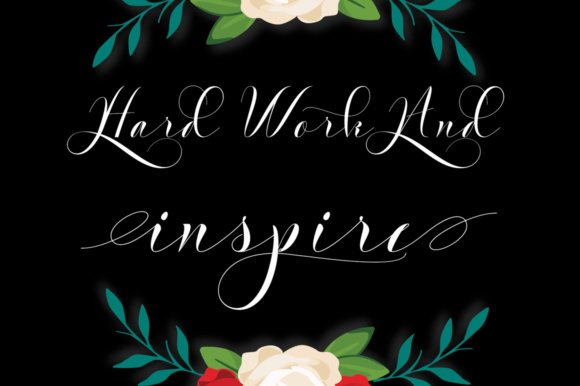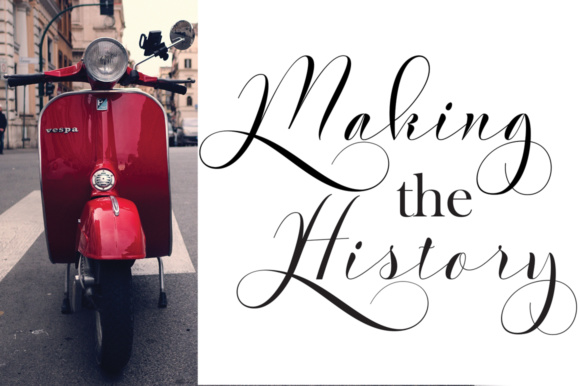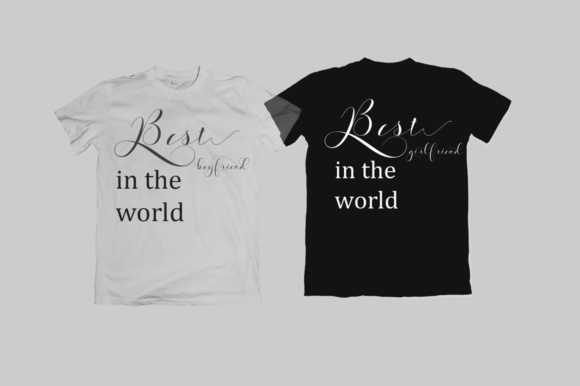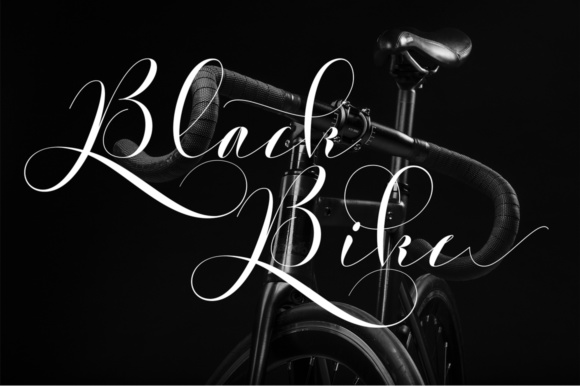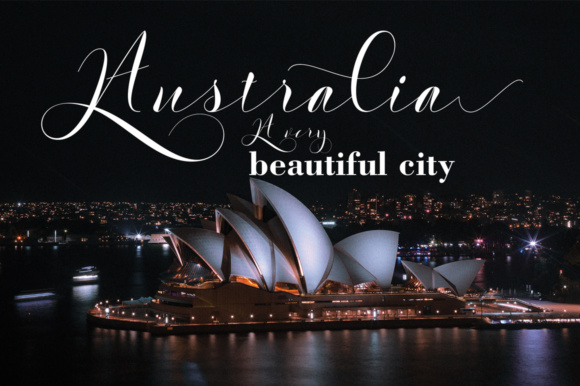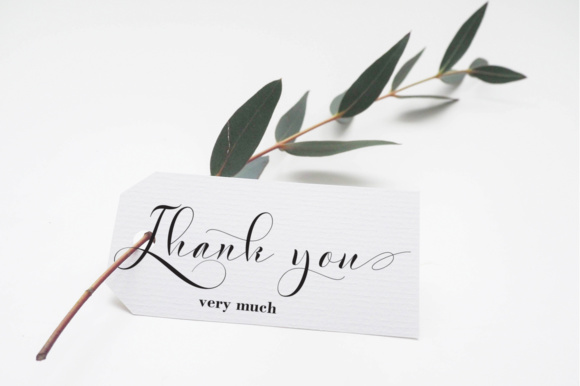
Introducing Ananda Font: Elevate Your Designs with Elegance and Sophistication
In the world of typography, a well-crafted font can make all the difference in elevating your designs to the next level. For designers and crafters seeking a stylish and elegant touch, Ananda Font is an exceptional choice. This stunning calligraphy font boasts a smooth baseline and a classic look that exudes sophistication and refinement.
What is Ananda Font?
Ananda Script is a beautiful calligraphy font, carefully crafted to provide a smooth and flowing writing experience. Its elegant design makes it perfect for a wide range of applications, from headings and signatures to logos, wedding invitations, and more. With Ananda Font, you can add a touch of luxury and glamour to your designs, making them truly unforgettable.
Key Features of Ananda Font
- Smooth Baseline: Ananda Font features a smooth baseline that provides a seamless writing experience, making it perfect for creating elegant headings and titles.
- Classic and Elegant Look: The font’s classic design ensures that your text looks sophisticated and refined, making it ideal for high-end designs and projects.
- Versatile: Ananda Font can be used for various purposes, including headings, signatures, logos, wedding invitations, and much more.
- Easy to Read: The font’s clear and legible design ensures that your text is easy to read, making it perfect for both digital and print applications.
Uses of Ananda Font
Ananda Font is an incredibly versatile font that can be used in a variety of design projects. Here are some ideas to get you started:
- Wedding Invitations: Add a touch of elegance and sophistication to your wedding invitations with Ananda Font.
- Logos and Branding: Use Ananda Font to create stunning logos and branding materials that exude luxury and refinement.
- Headings and Titles: Elevate your headings and titles with Ananda Font’s smooth baseline and classic design.
- Signatures: Add a personal touch to your signatures with Ananda Font’s elegant and sophisticated design.
- Stationery and Packaging: Use Ananda Font to create beautiful stationery and packaging materials that showcase your brand’s personality.
Why Choose Ananda Font?
With so many fonts available, why choose Ananda Font? Here are just a few reasons why Ananda Font stands out from the rest:
- Unique and Exclusive: Ananda Font is a unique and exclusive font that will set your designs apart from the rest.
- High-Quality: The font is crafted with high-quality design principles, ensuring that your text looks crisp and clear.
In conclusion, Ananda Font is an exceptional choice for designers and crafters seeking a stylish and elegant font for their designs. With its smooth baseline, classic design, and versatility, Ananda Font is perfect for a wide range of applications. Whether you’re creating wedding invitations, logos, or headings, Ananda Font is sure to elevate your designs to the next level. So why wait? Download Ananda Font today and experience the power of elegant typography.